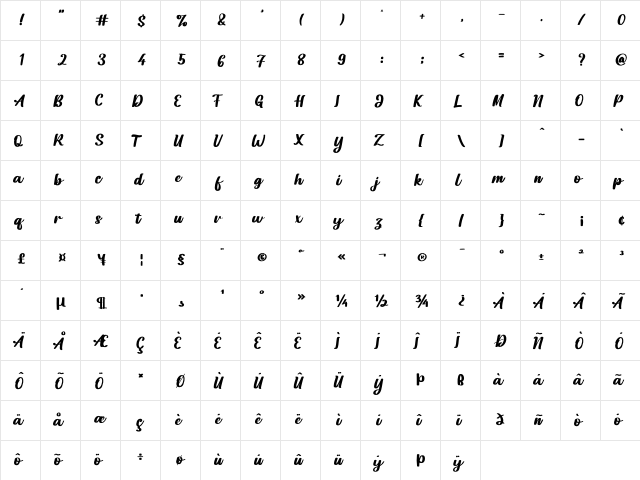
Dakota Artha Regular
Design Context for Dakota Artha Typeface
Dakota Artha is a composed and adaptable typeface that performs quietly and consistently across a wide range of design contexts.